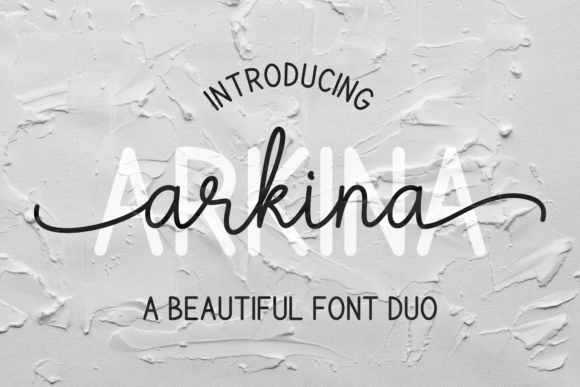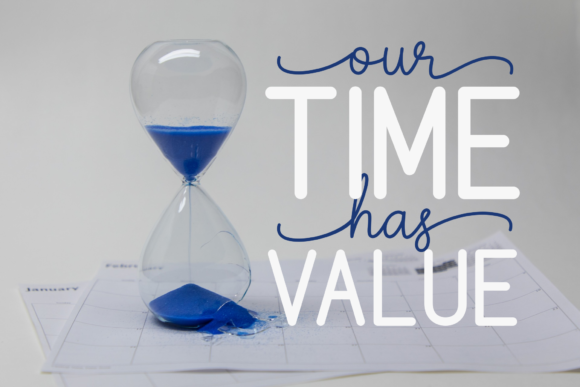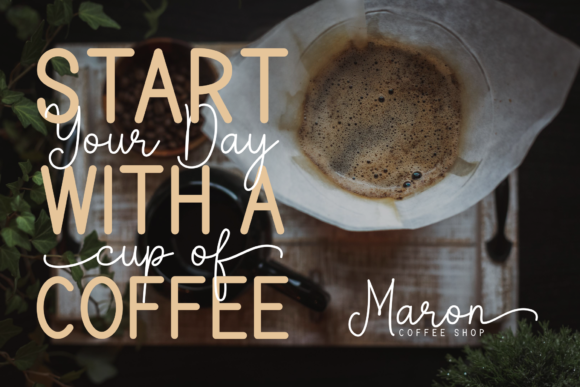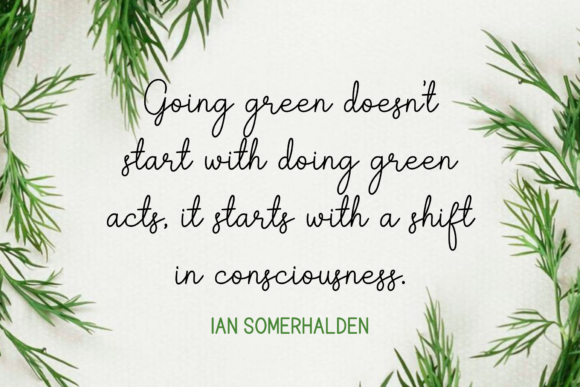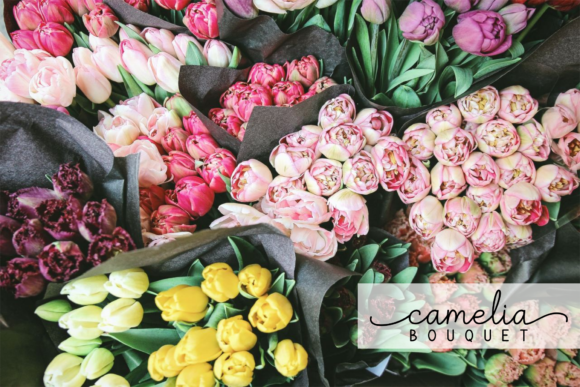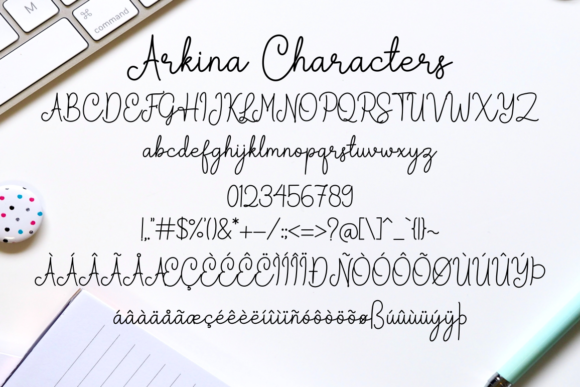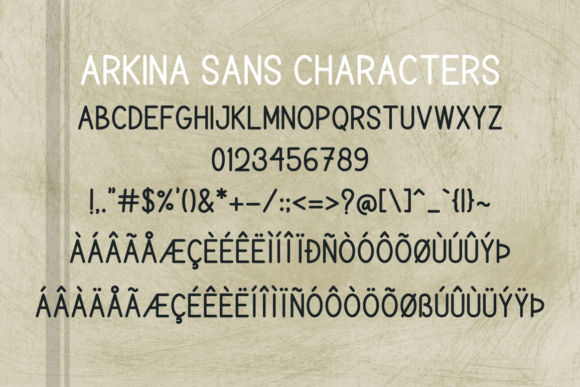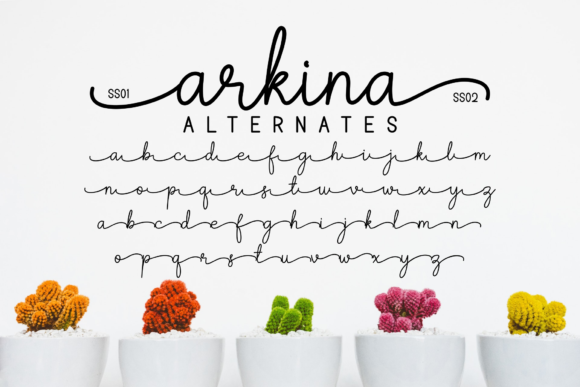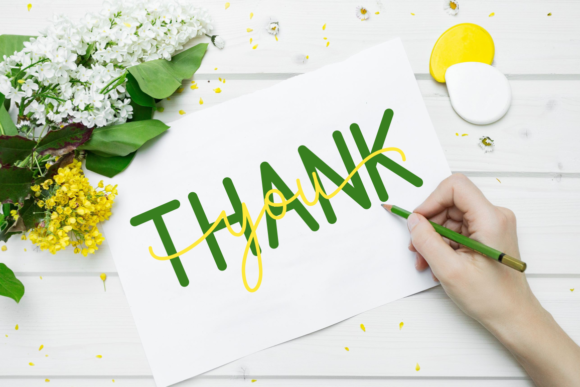
Arkina Duo Font
About Arkina Duo Font
The Arkina is a beautiful font duo, consisting of script fonts and sans serif fonts which can be paired perfectly. It has a striking and elegant style and it is perfect for creating unique designs.